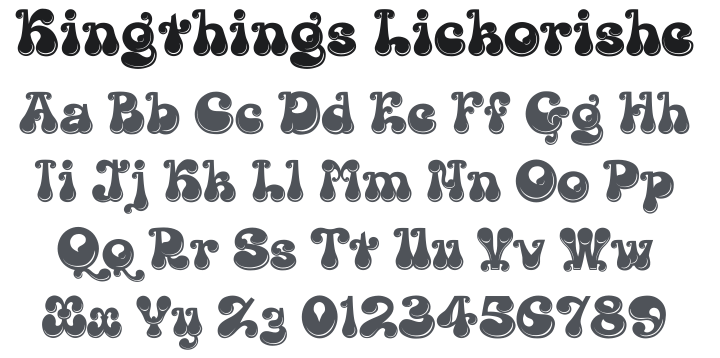
Kingthings Lickorishe Font
About Kingthings Lickorishe
This was almost Kingthings Leechy... just another one of my bulbous shiney things - i have always liked letter-shapes with 'bottom', probably a 70's thing as many a seventies thing did indeed posess it - including Chaka Kahn... Oooh, Diva!